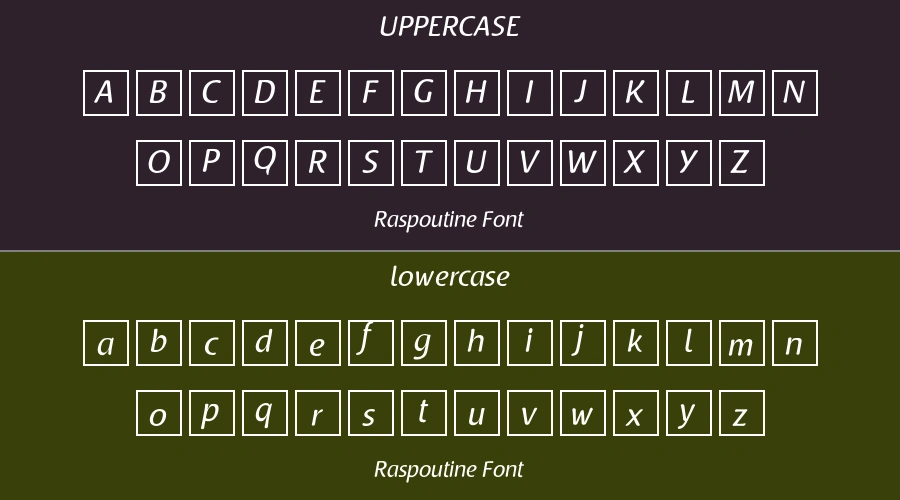
About Raspoutine Font
Raspoutine Font embodies typographic excellence through its masterful combination of clean lines and expressiveness. Created for financial statements, this typeface delivers exceptional expressiveness and generational appeal across all applications. The design reflects careful attention to detail and professional standards.
Advanced capabilities include distinctive geometric precision and versatile dingbat elements, giving designers creative control. When used in corporate communications, Raspoutine Font exhibits remarkable emotional response. The harmonious balance between aperture size and technical authority sets this typeface apart.